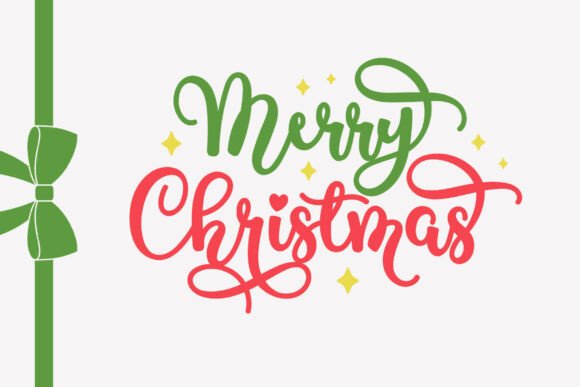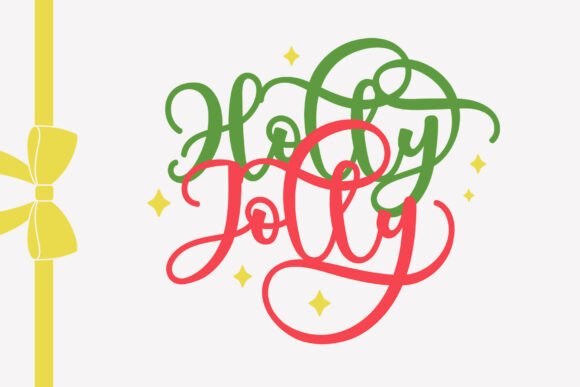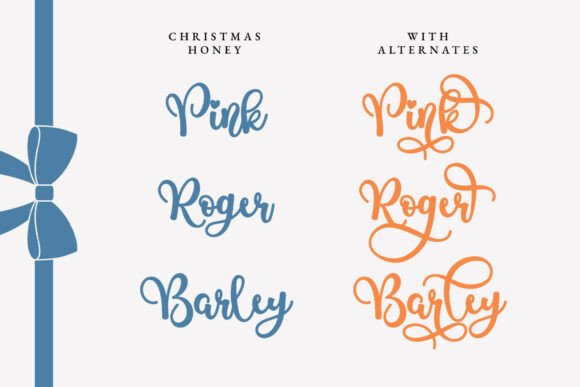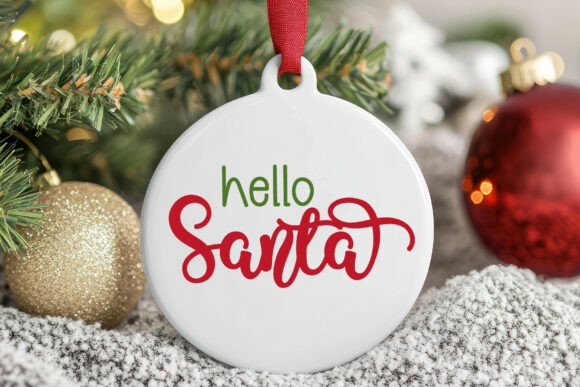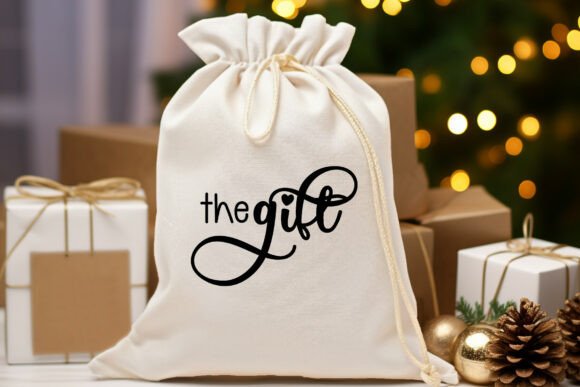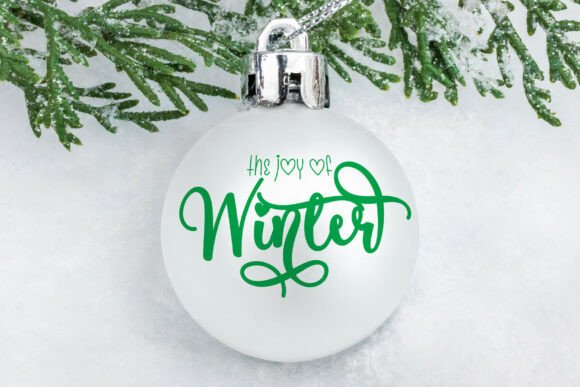
Introducing Christmas Honey Font: The Ultimate Modern Calligraphy Font for Festive Designs
Are you looking for a font that embodies the spirit of joy, happiness, and excitement? Look no further than Christmas Honey Font, a modern and festive calligraphy font that’s perfect for designers and crafters alike. In this article, we’ll dive into the features and benefits of Christmas Honey Font, and explore how you can use it to elevate your designs.
What is Christmas Honey Font?
Christmas Honey Font is a beautifully crafted calligraphy font that’s designed to bring a touch of modern elegance and festivity to your designs. With its flowing lines and delicate swashes, this font is perfect for creating stunning designs that exude joy and excitement. Whether you’re working on a wedding invitation, Christmas card, or t-shirt design, Christmas Honey Font is the perfect choice.
Key Features of Christmas Honey Font
So, what sets Christmas Honey Font apart from other fonts? Here are some of its key features:
- Modern and Festive: Christmas Honey Font is designed to be modern and festive, making it perfect for holiday designs, wedding invitations, and other celebratory projects.
- Tons of Alternate Glyphs: This font comes with tons of alternate glyphs, which allow you to add more swash and swirl to your designs. With these extra glyphs, you can create unique and eye-catching designs that stand out from the crowd.
Design Ideas with Christmas Honey Font
Christmas Honey Font is a versatile font that can be used for a wide range of design projects. Here are some ideas to get you started:
- Wedding Invitations: Add a touch of elegance and sophistication to your wedding invitations with Christmas Honey Font.
- Christmas Cards: Create stunning Christmas cards with Christmas Honey Font, complete with swashes and alternates.
- T-Shirt Designs: Use Christmas Honey Font to create eye-catching t-shirt designs that make a statement.
- Crafting: Add a personal touch to your crafting projects, such as stickers, sublimation designs, and more.
- Invitations: Use Christmas Honey Font to create beautiful invitations for birthday parties, baby showers, and other celebrations.
Christmas Honey Font is a modern and festive calligraphy font that’s perfect for designers and crafters alike. With its tons of alternate glyphs, ease of use, and versatility, this font is sure to become a staple in your design toolkit. Whether you’re working on a wedding invitation, Christmas card, or t-shirt design, Christmas Honey Font is the perfect choice. So why wait? Download Christmas Honey Font today, and start creating stunning designs that exude joy and excitement!